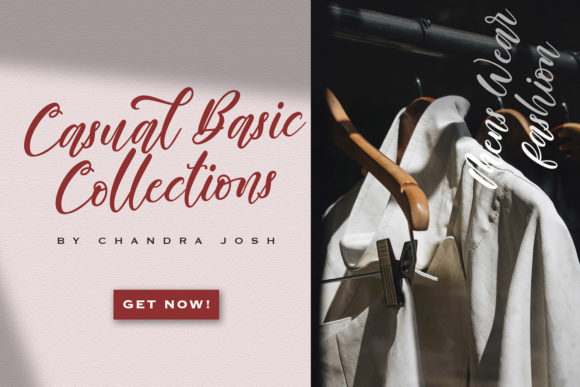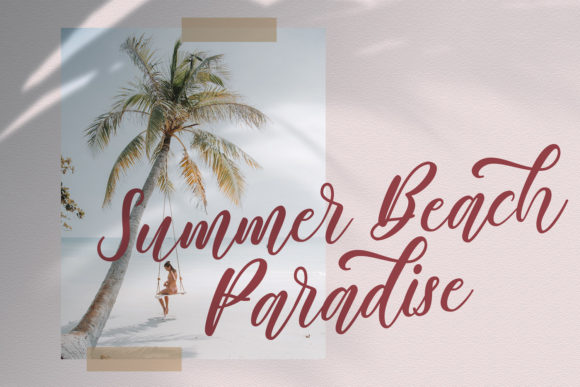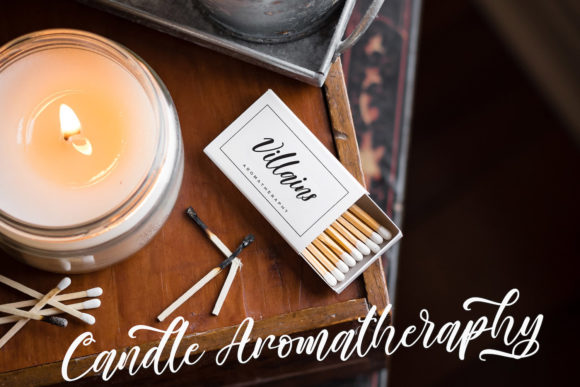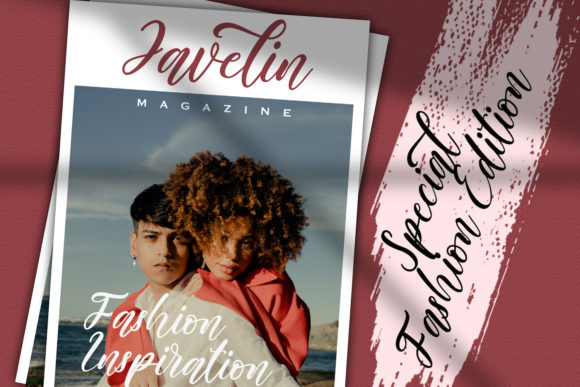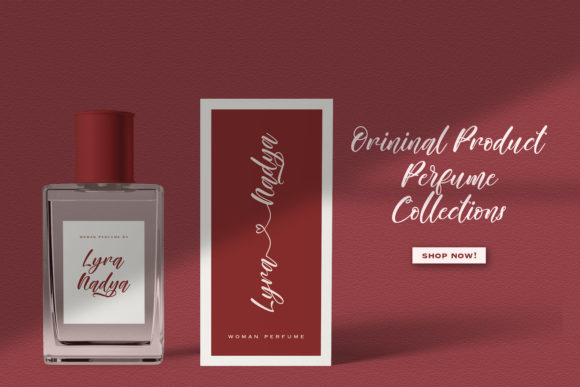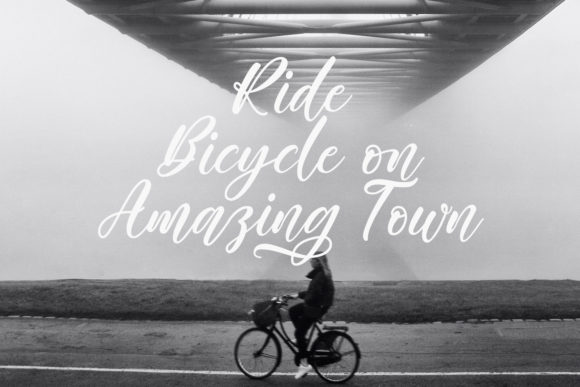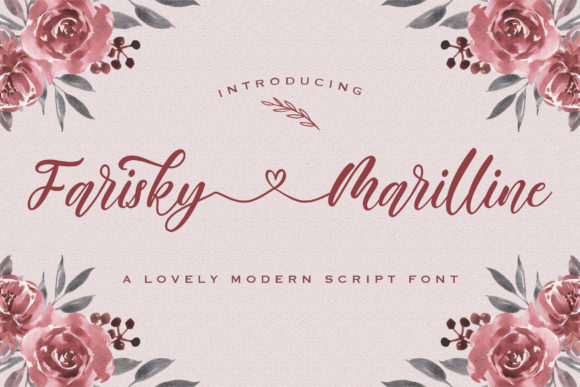
Introducing Farisky Marlline Font: Elevate Your Designs with Elegance
In the world of typography, a beautiful script font can make all the difference in creating stunning designs that capture the essence of elegance and sophistication. Farisky Marlline Font is one such gem that has been making waves in the design community, and for good reason. This gorgeous script font boasts a lovely flow, making it perfect for a variety of designs that require a personalized touch.
What Makes Farisky Marlline Font Special?
Farisky Marlline Font is more than just a pretty face; it’s a versatile typeface that can be used in numerous design projects, including:
- Wedding invitations: Add a touch of romance and whimsy to your wedding invites with this beautiful script font.
- Thank you cards: Express your gratitude in style with Farisky Marlline Font’s elegant and flowing script.
- Weddings: Use this font in wedding stationery, such as programs, menus, and place cards, to create a cohesive and sophisticated look.
- Greeting cards: Whether it’s a birthday, anniversary, or holiday card, Farisky Marlline Font is sure to make your design stand out.
- Logos: Yes, you read that right! This script font can also be used to create stunning logos that exude elegance and refinement.
- Alternate between different letterforms and swashes to create unique and eye-catching designs.
- Access a wide range of special characters and glyphs to add an extra layer of personality to your designs.
- Mix and match different elements to create a truly one-of-a-kind look.
Why Designers and Crafters Love Farisky Marlline Font
So, what is it about Farisky Marlline Font that designers and crafters love so much?
For starters, the font’s beautiful script style adds a touch of elegance and sophistication to any design. The flowing lines and curves create a sense of movement and fluidity, making it perfect for designs that require a more personalized touch.
Additionally, the font’s versatility means it can be used in a wide range of projects, from wedding stationery to logos and branding materials. Whether you’re a professional designer or a crafter looking to add a special touch to your DIY projects, Farisky Marlline Font is an excellent choice.
Tips for Using Farisky Marlline Font
- Experiment with different swashes and glyphs to create unique and eye-catching designs.
- Pair Farisky Marlline Font with other fonts to create a stunning contrast and add visual interest to your designs.
- Use the font in different sizes and colors to create a hierarchy of elements and draw attention to specific parts of your design.
- Don’t be afraid to get creative and try new things! Farisky Marlline Font is a versatile typeface that can be used in countless ways.